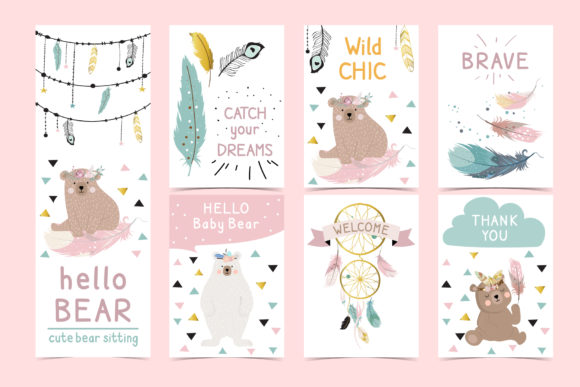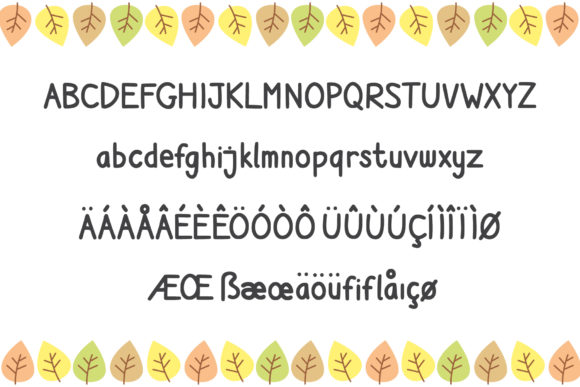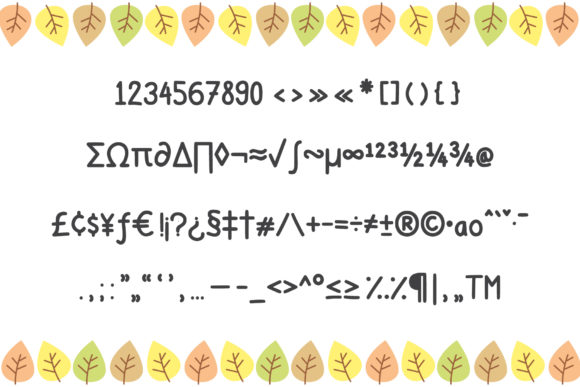
Introduction to Gomgom Font
Gomgom is a magical display font carefully created with a touch of elegance.
This is a beautiful combination of timeless elegance and modern simplicity It features an incredibly classic style, while still keeping a friendly feel.
Key Features of Gomgom Font
Why Choose Gomgom Font?